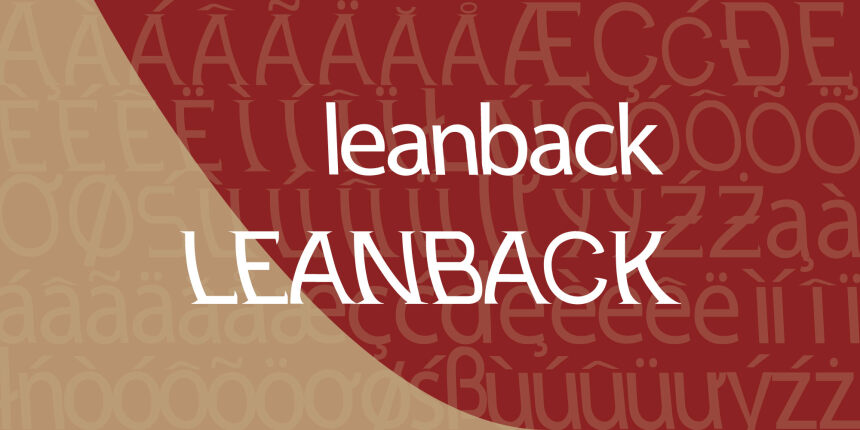
Leanback
Leanback font is a free distorted display font created by Mad Crabs Creations. A unique take on the modern font style, each character in Leanback appears to lean either to the left or to the right with some variance. This causes a special type of visual illusion that makes it hard for viewers to look away and detract their attention.
It is hard not to consider this creative display font for sci-fi artwork, music album covers, urban-themed mobile apps and games, technology websites design among other projects.